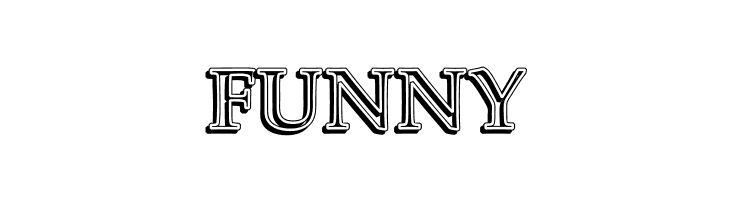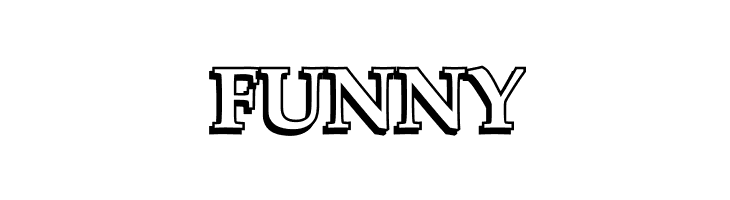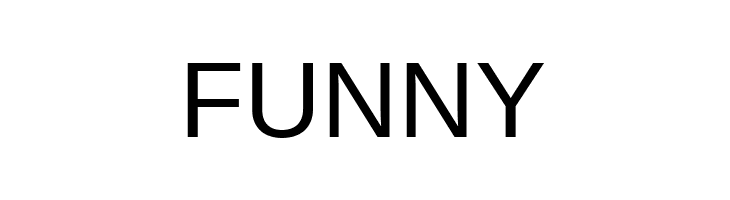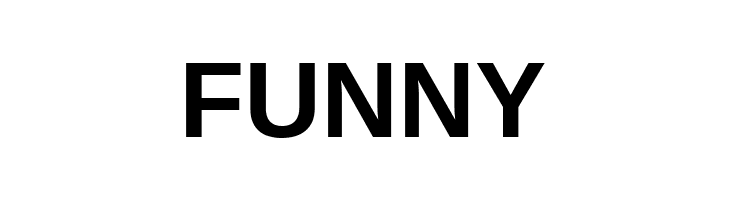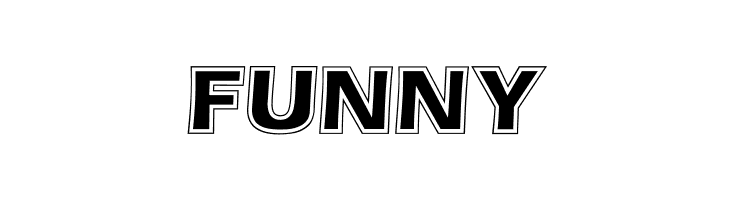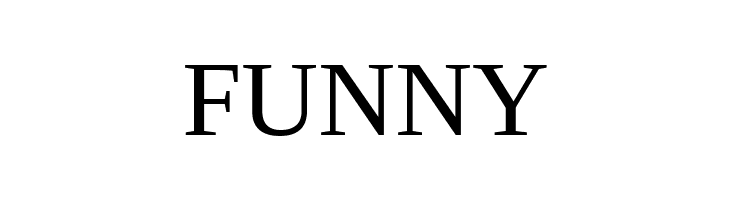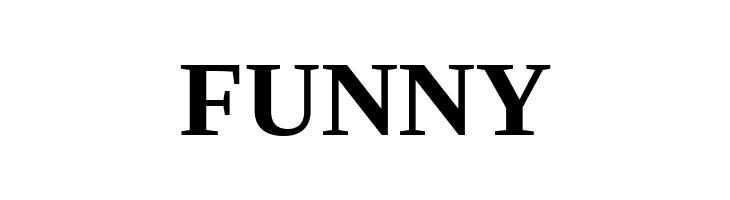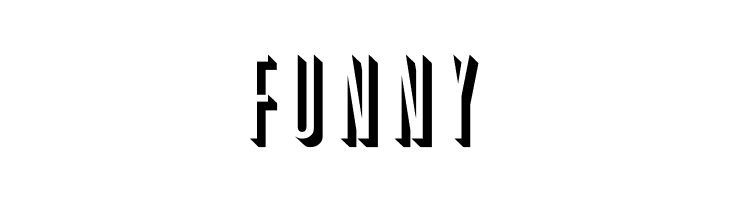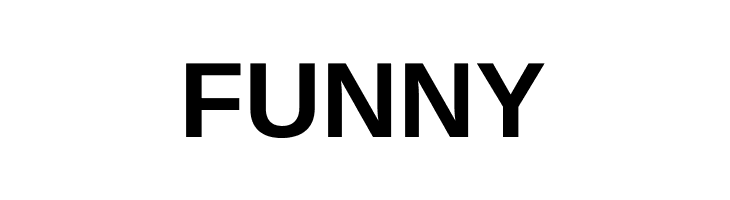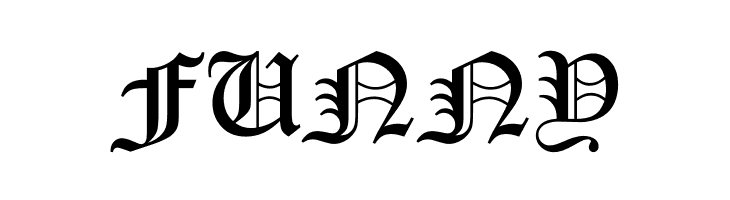
• UKIJ Diwani
Elegant serif font with a slight italic slant, offering a classic and sophisticated look.
• UKIJ Diwani Kawak
An elegant script font with a shadow effect, offering a three-dimensional look.
• UKIJ Diwani Tom
A classic, elegant font with a slight italic slant and moderate contrast.
• UKIJ Diwani Yantu
A dynamic handwritten font with fluid, expressive strokes.
• UKIJ Kawak
A classic serif font with modern elegance and refined strokes.
• UKIJ Kawak 3D
A bold, 3D font with a shadow effect, perfect for impactful designs.
• UKIJ Kawak 3D Bold
A bold, 3D serif font with a strong, embossed appearance.
• UKIJ Kufi
A clean, modern sans-serif font with excellent readability and versatility.
• UKIJ Kufi 3D
A bold, 3D font with strong shadow effects, perfect for impactful designs.
• UKIJ Kufi Chiwer
A bold, striped font with a modern, geometric style.
• UKIJ Kufi Gul
A modern sans-serif font with clean lines and balanced proportions.
• UKIJ Kufi Kawak
A bold, three-dimensional font with sharp angles and a modern aesthetic.
• UKIJ Kufi Tar
A traditional blackletter font with ornate, angular letterforms and high contrast.
• UKIJ Kufi Uz
A modern sans-serif font with clean lines and a slightly condensed width.
• UKIJ Kufi Yay
A modern sans-serif font with clean lines and a slightly condensed style.
• UKIJ Kufi Yay Bold
A bold, modern sans-serif font with clean, geometric lines.
• UKIJ Kufi Yolluq
A bold, decorative font with a unique horizontal striped pattern.
• UKIJ Mejnuntal
A modern, tall, and narrow font with elegant, elongated characters.
A bold, outlined font with a three-dimensional effect, ideal for impactful designs.
• UKIJ Tuz Qara
A classic serif font with a modern touch, offering elegance and readability.